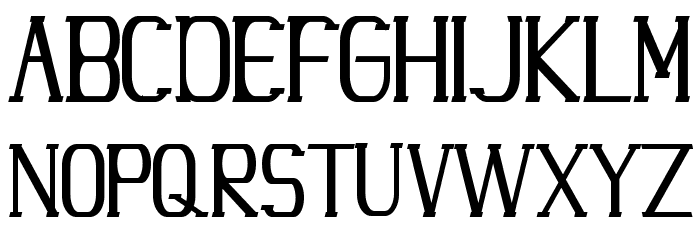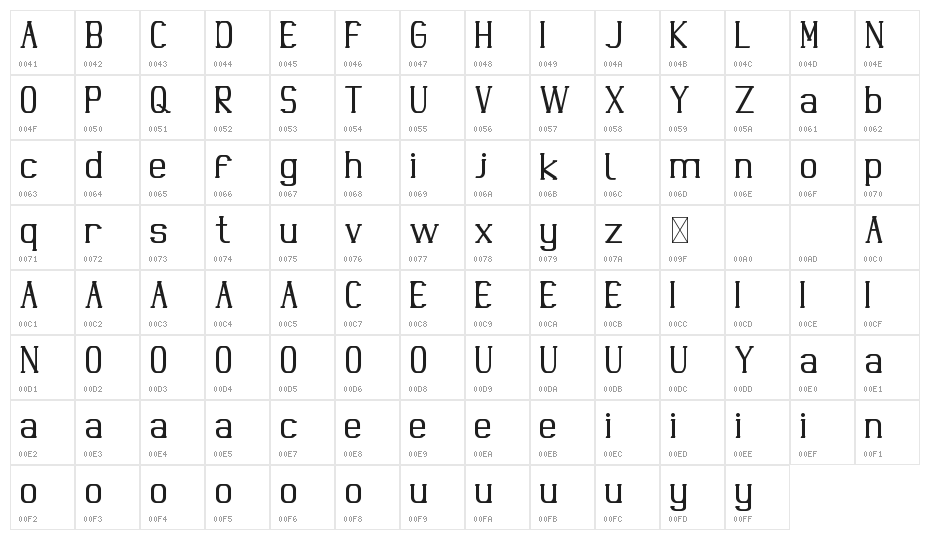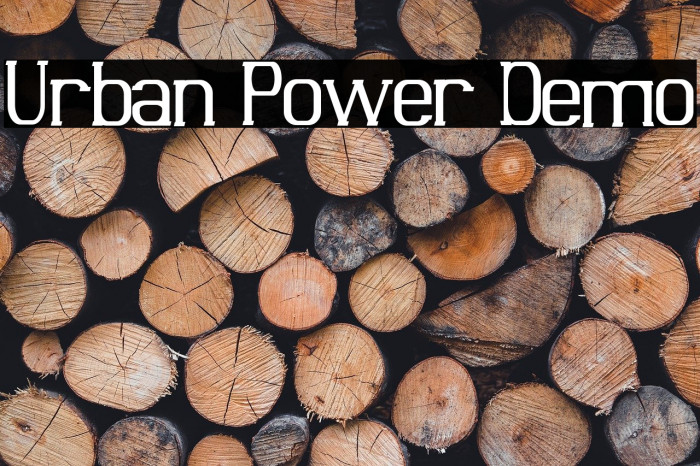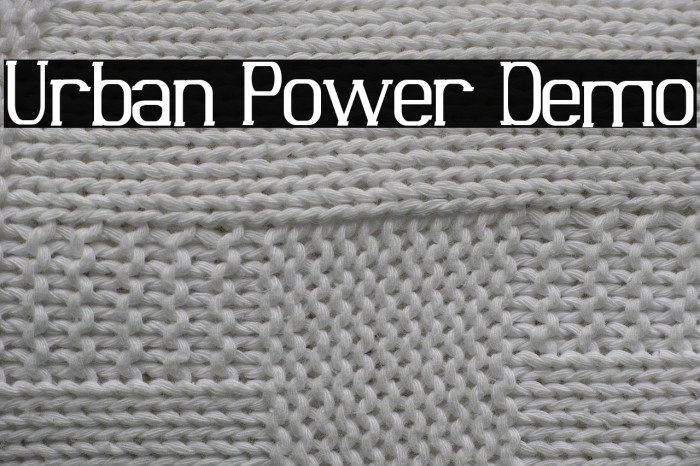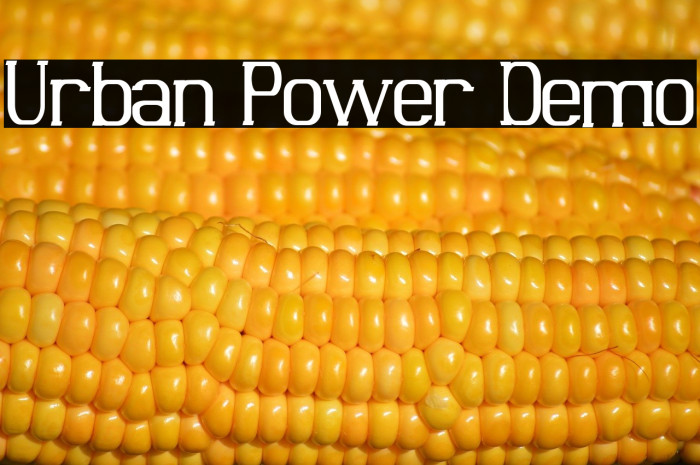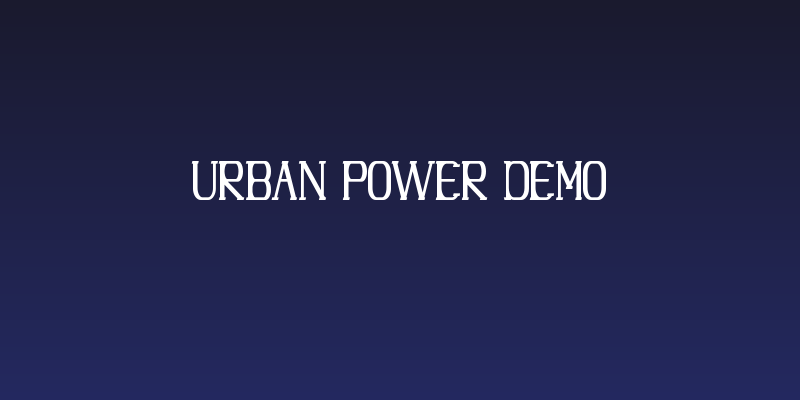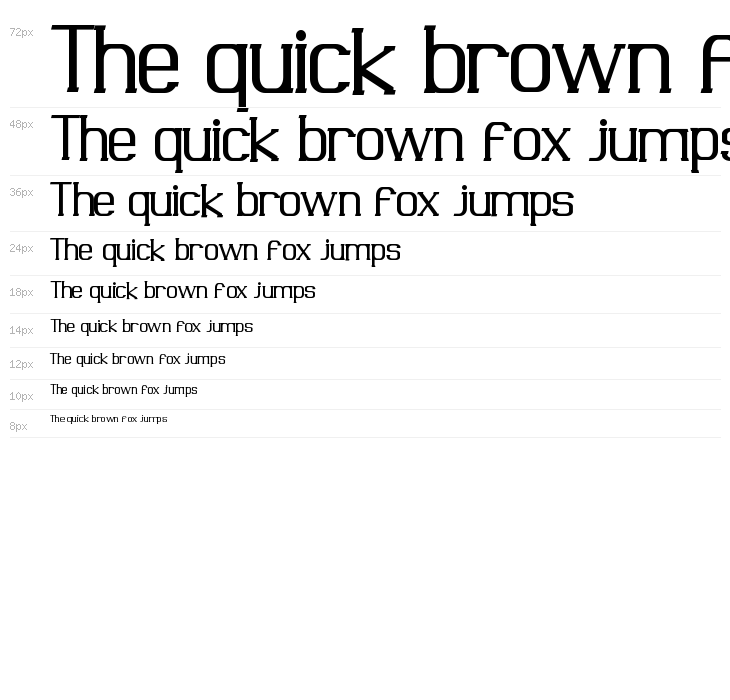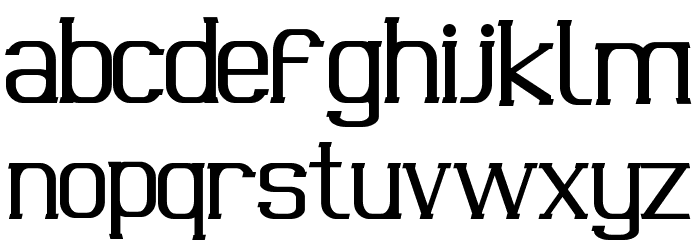
Urban Power Demo Font
Urban Power Demo Description
This font features a unique blend of modern and industrial design elements, characterized by its geometric and angular letterforms. The uppercase letters are bold and commanding, with a distinct architectural feel, while the lowercase letters maintain a consistent style that complements the uppercase. The font's structure is clean and precise, with sharp edges and a uniform stroke width that gives it a strong presence. The characters are well-spaced, ensuring readability and a balanced appearance. This font is ideal for making a bold statement in any design project, offering a contemporary and edgy aesthetic.
| Overall Style | Modern, Industrial |
| Proposed Projects | Ideal for branding, posters, headlines, and any project requiring a modern, edgy look. |